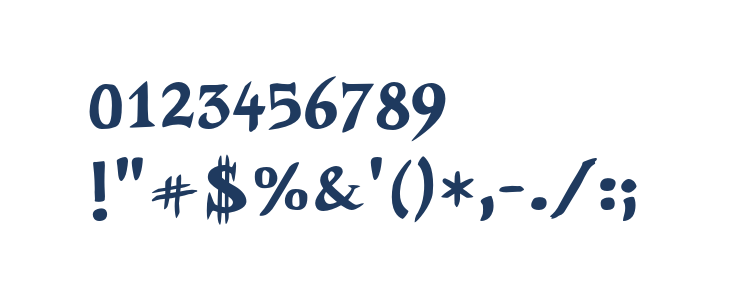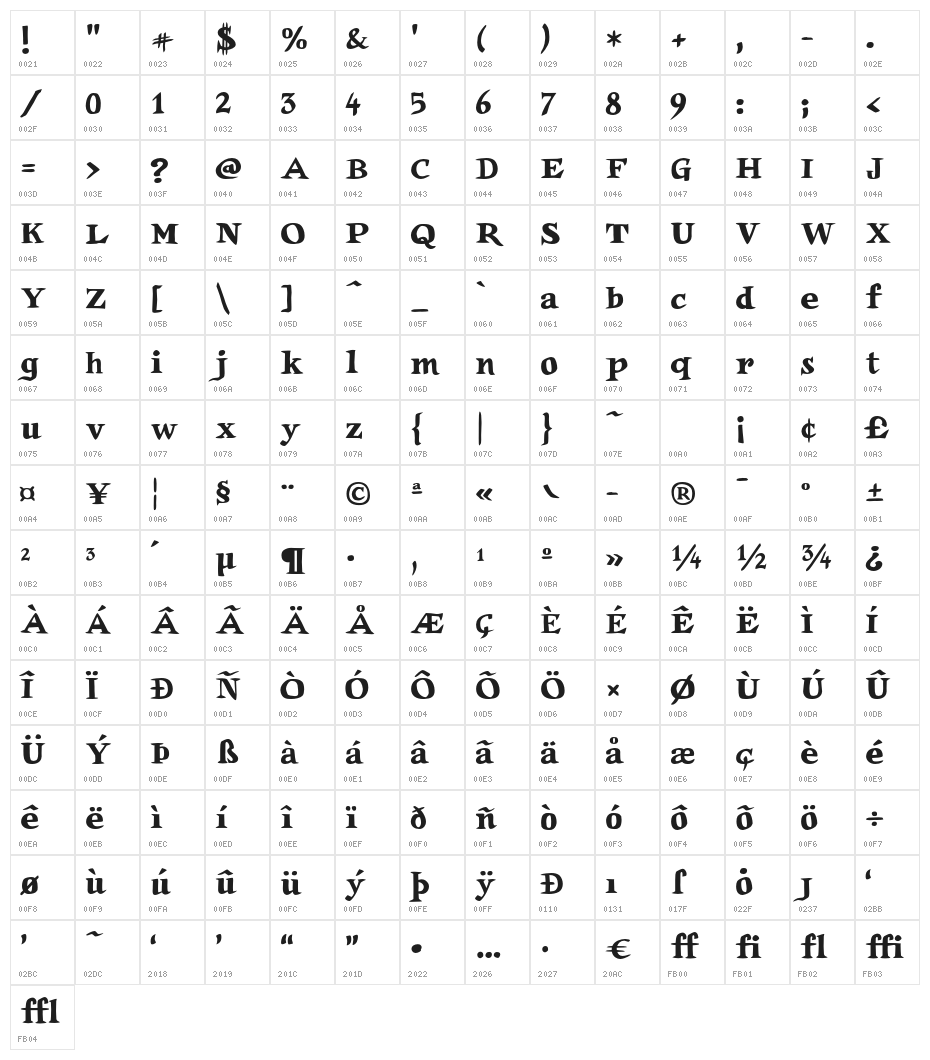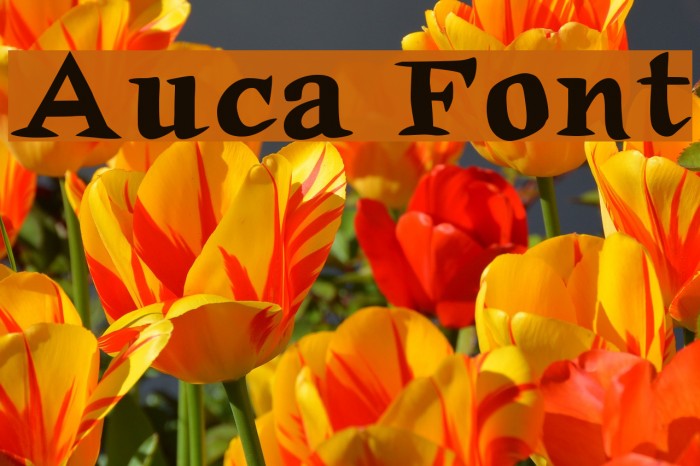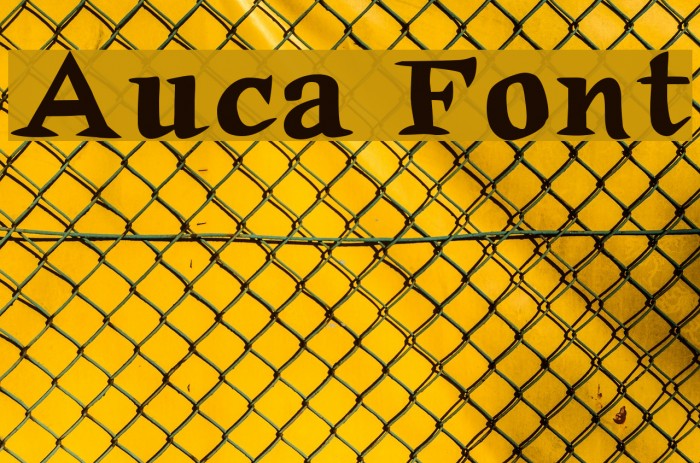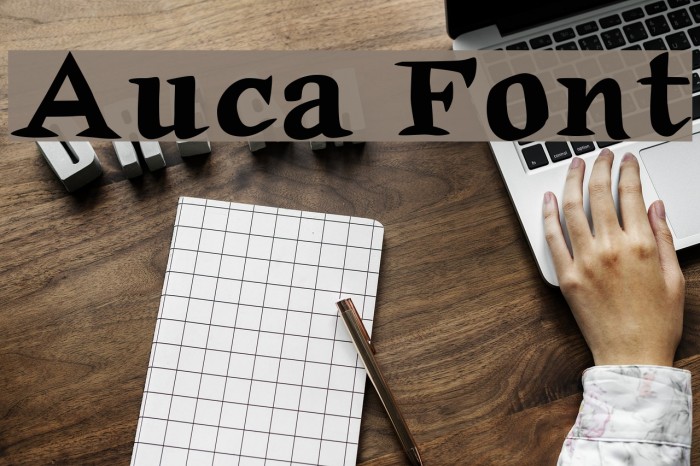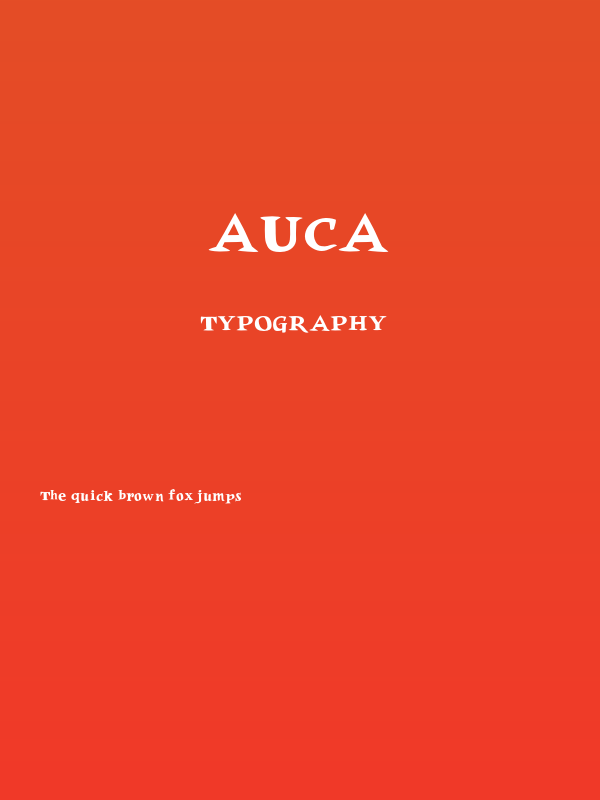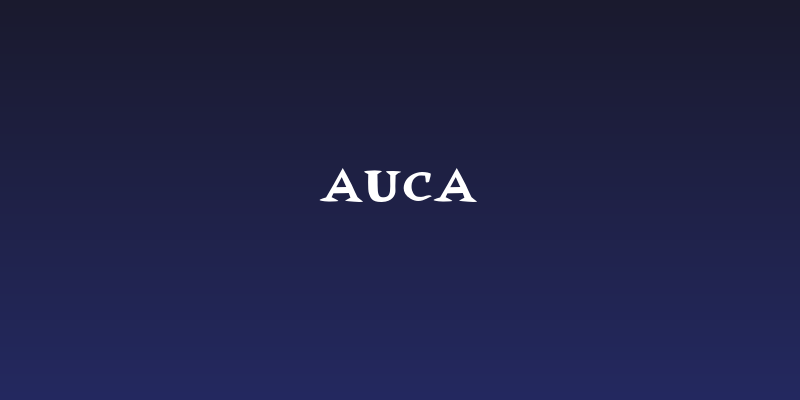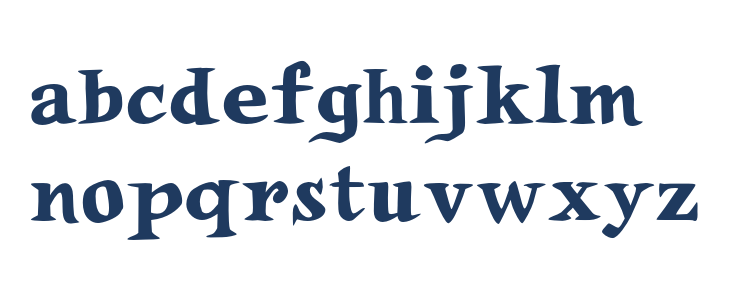
Auca Font
Auca Description
This font features a bold and dramatic style with a strong presence, characterized by its thick strokes and sharp serifs. The uppercase letters are particularly striking, with a slightly condensed form that adds to their commanding appearance. The lowercase letters maintain a consistent style, with unique flourishes that give the font a distinct personality. The numerals are bold and clear, ensuring readability. Special characters are crafted with the same attention to detail, making them suitable for various design needs. Overall, this font combines traditional serif elements with a modern twist, making it versatile for both classic and contemporary projects.
Rafael Ferran i Peralta